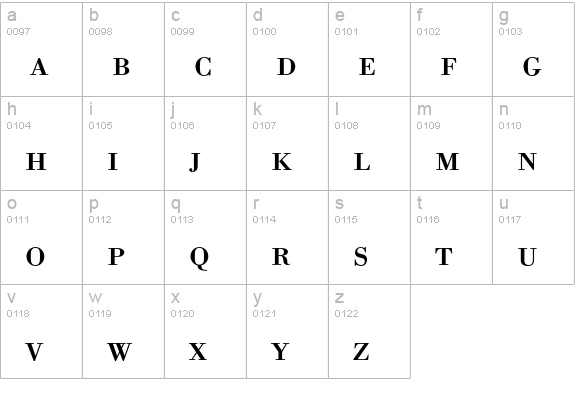
Bodoni Berthold Exp BQ Regular Font Details
Bodoni Berthold Exp BQ Regular is the standard, neutral variant in the Bodoni typeface family \xE2\x80\x94 well suited to general body text, paragraphs, and standard typographic work.
Bodoni Berthold Exp BQ Regular font is a classic and elegant typeface that exudes sophistication and style. With its clean lines, high contrast, and sharp serifs, this font is perfect for adding a touch of refinement to any design project. The Bodoni Berthold Exp BQ Regular font is versatile and can be used in a variety of applications, from editorial design to branding and packaging. The best part is that this font is available for free download at FontsMarket.com. Whether you're a designer looking to elevate your projects or a business owner in need of a professional font, Bodoni Berthold Exp BQ Regular font is a great choice. Don't miss out on this opportunity to enhance your designs with this stunning typeface.